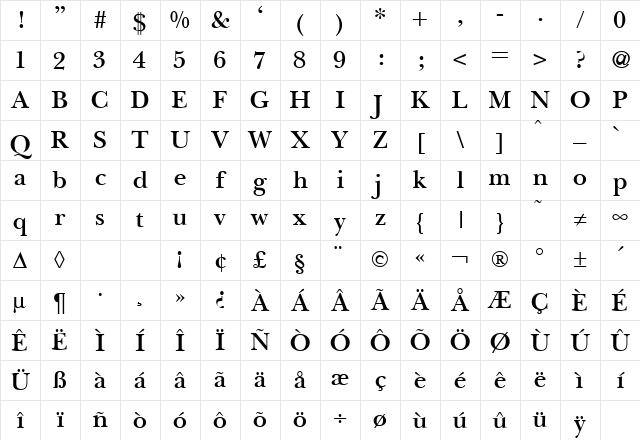
BaskervilleNovaTwoDemi Regular
Design Context for BaskervilleNovaTwoDemi
BaskervilleNovaTwoDemi is a composed and adaptable typeface that performs quietly and consistently across a wide range of design contexts.
Pro Tip: Use BaskervilleNovaTwoDemi in both headline and body roles to test its range before committing to a single application.